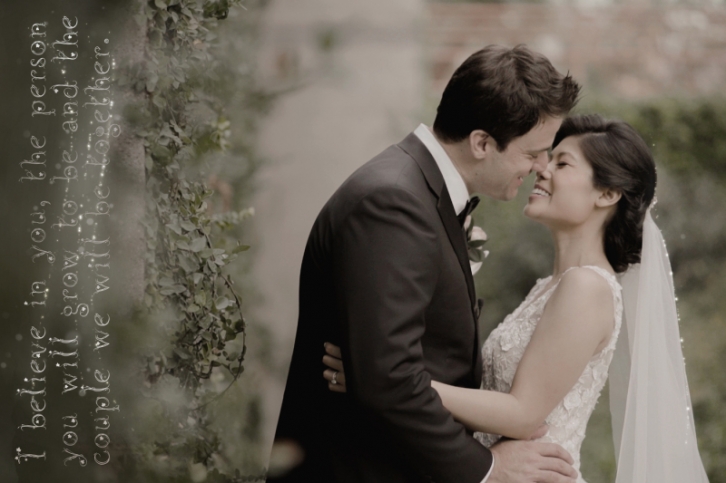
I’m pleased to introduce my new decorative font Magic Ivy.
Magic Ivy is a fantasy font for you to add a touch of magic to your designs!
Unique uppercase letters are ideal for your wedding monograms and logos.
Use this font for wedding invitations, branding, packaging, magazines, florist shops, social media, restaurant menus, greeting cards, headers, poster, fabulous book cover and many more.
Magic Ivy comes with uppercase, lowercase, numerals and punctuation.